20 Great Christmas Fonts 2020
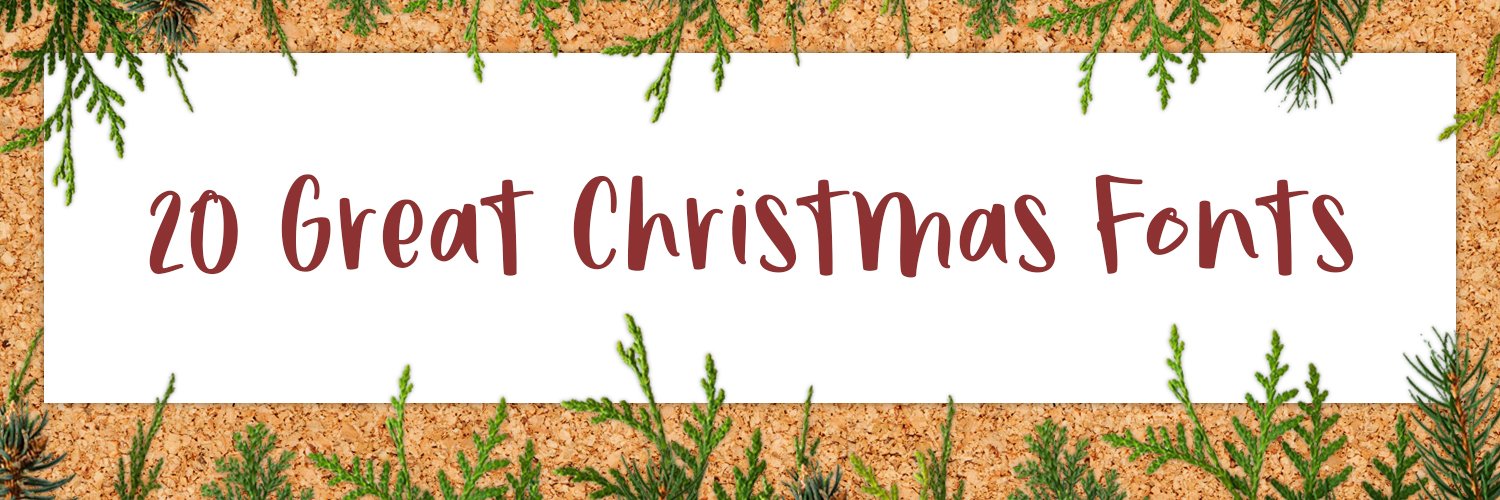
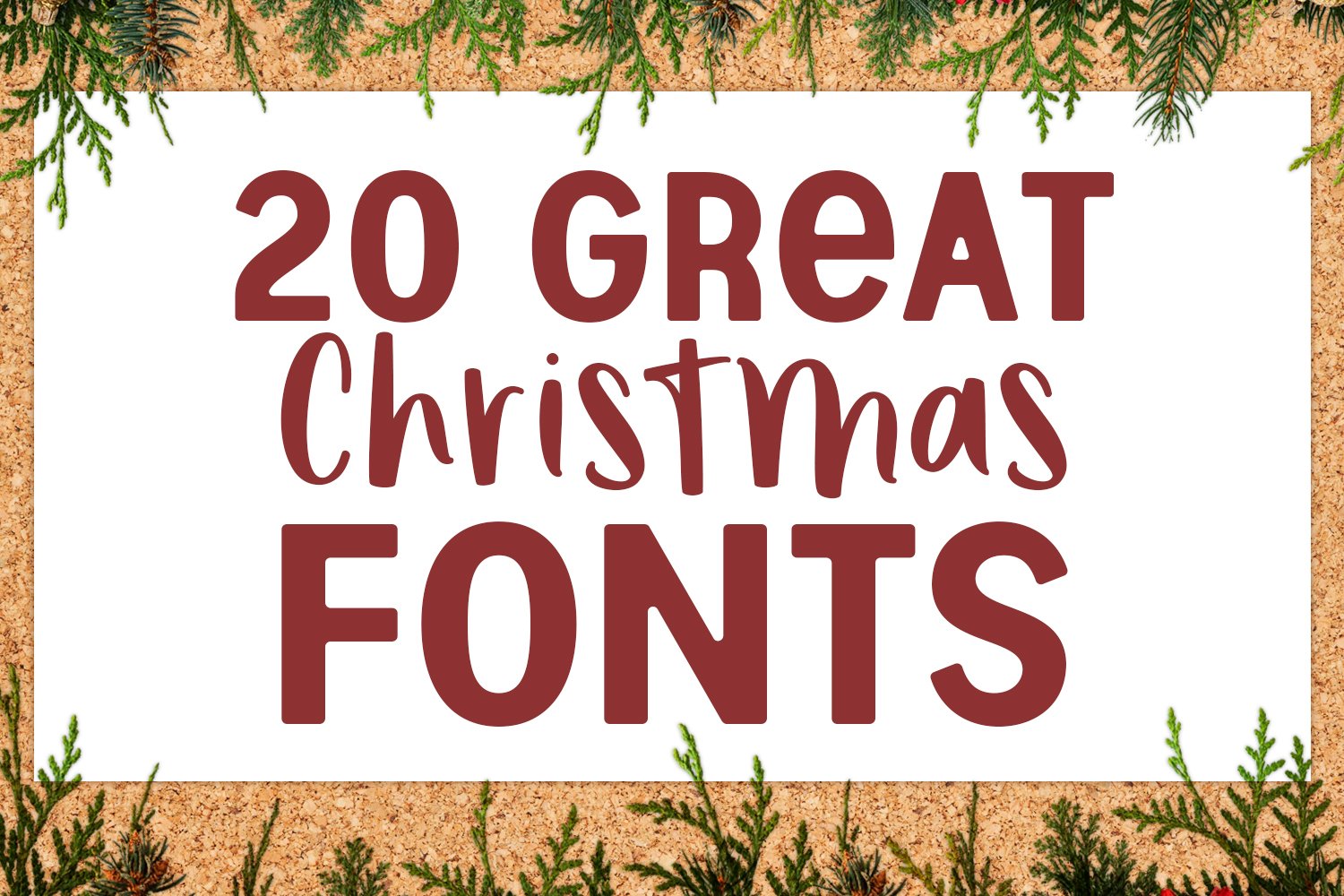
Presenting MakersType’s 2020 lineup of our best Christmas Fonts. These will all work great in your holiday cards, winter graphic design projects, and help give any crafts an instant feeling of happy cheer. Let us know which ones you like and share with us on social media pictures of how you have used them.
1. KG Candy Cane Stripe
Candy Cane Stripe is a sans-serif font that gives your project an instant Christmas candy feeling.
Designed By: KG Fonts
2. Fireplace
Fireplace is brand-spanking-new in 2020. It comes with icons for snowflakes, sparkles, stars, as well as swashes. This Typeface will surely give your project a vintage feeling and is extremely legible.
Designed By: Måns Grebäck
3. Merry Christmas
Created in 2015, Merry Christmas is script font with a great weight and flow to it. It comes in two styles: one with stars and one with snowflakes.
Designed By: Måns Grebäck
4. Sugar and Spice
Sugar and Spice is a font duo with a script version as well as a handwritten sans. It comes with lots of alternates and ligatures to help give a more natural feeling to your projects. Sugar and Spice is designed with small descenders to help with multi-line designs.
Designed by: Brittney Murphy Design
5. Big Freeze and Big Frost
These typefaces are two sides of the same coin: one hollowed out and filled with a flurry of snowflakes, the other solid and filled with the same snowflakes. And even better, each one comes with a full alternate alphabet without the snowflakes as well!
Designed By: Missy Meyer
6. Christmas Sparkle
A thicc script font that brings a spark to any Christmas-themed project.
Designed By: Måns Grebäck
7. KG Christmas Trees
Looking for vector Christmas trees? This font will work great for you. Tons of different styles in a symbol font.
Designed By: KG Fonts
8. Janda Christmas Doodles
A huge set of great doodles that are perfect for your winter and Christmas craft projects. Scarfs, reindeer, bells, trees, and so much more.
Designed By: KG Fonts
9. One Starry Night
A handwritten curly font, One Starry Night gives a quirky and whimsical feeling to anything you use it with. This font becomes the center of attention and needs little else to make a statement.
Designed by: Brittney Murphy Design
10. DJB Dear St Nick
Dear St. Nick is a clean script font that has a very natural look to it. Great for begging for everything on your list… even if you’ve been naughty.
Designed By: DJB Fonts
11. I love Glittermas
I Love Glittermas is a spectacular handwritten font with cute festive elements. This font has a Christmas Holiday theme. Use it to make your ideas even more realistic and create spectacular designs!
Designed By: Misti’s Fonts
12. Christmas Miracle
Christmas Miracle is a festive Christmas font that gives a sparkly look to each character, and brings out the spirit of the season.
Designed By: Måns Grebäck
13. DJB Dear Mr Claus
Another fun, rustic, handwritten font that’s great for Christmas list projects and crafts.
Designed By: DJB Fonts
14. Cinnamon Cake
Cinnamon Cake is a casual handwritten font that gives a cute, homemade touch to your projects. Anything you write will look as if a gingerbread man wrote it for you.
Designed by: Brittney Murphy Design
15. What I Want For Christmas
What I Want For Christmas is a lightweight hand-lettered script font with an elegant feminine feeling. Great for gift tags and all kinds of graphic design projects.
Designed by: Emily Spadoni
16. Breakfast Pastry
A clean serif font with fun round ends to the letters. Classy and vintage, Breakfast Pastry, comes with 3 versions that are all different weights.
Designed By: Missy Meyer
17. Winter Twilight
Winter Twilight is a charming typeface with lovely curls and bold & bouncy strokes. This typeface is perfect for advertisements, logos, product labels, graphics and so much more!
Designed By: Misti’s Fonts
18. Scamper & Scamper Snowy
A cute, handwritten font duo! And Scamper Snow features snowflakes on all of the letters and numbers. Great for all winter holiday projects!
Designed By: Missy Meyer
19. Chasing Snowflakes
Chasing Snowflakes is a fun wintery typeface that will add whimsical charm to your projects all year round! Type * (asterisk) for the snowflake!
Designed By: Misti’s Fonts
20. Farm To Market
Farm to Market is a rustic all caps serif font family that is not a traditional “Christmas” font, but works well with rustic Christmas decor.
Designed by: Brittney Murphy Design